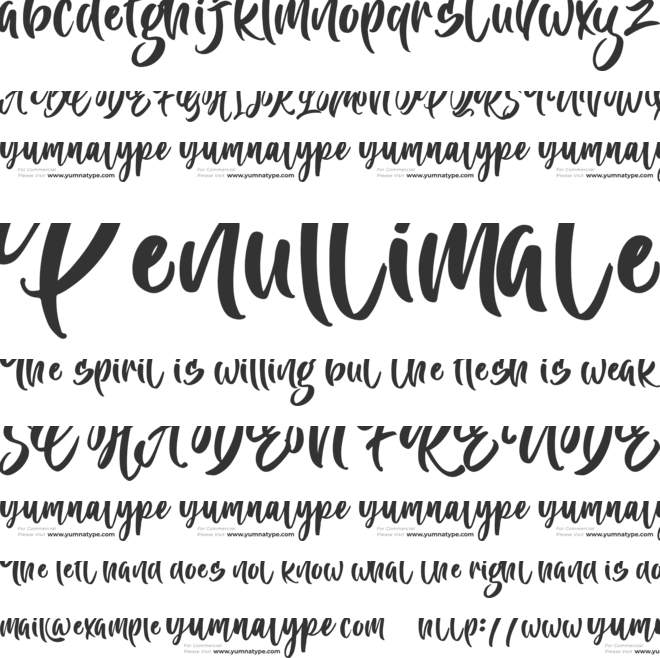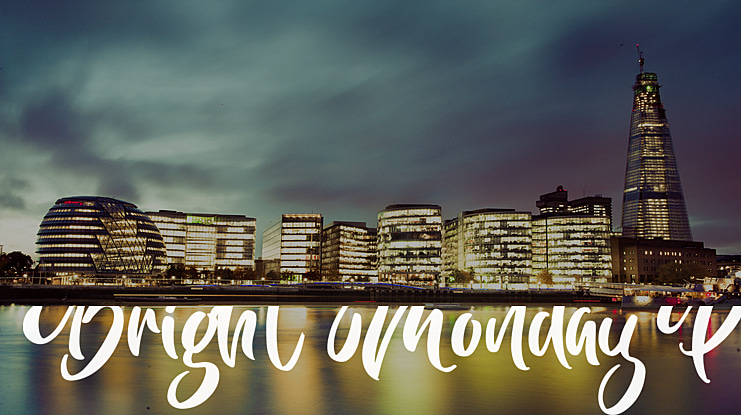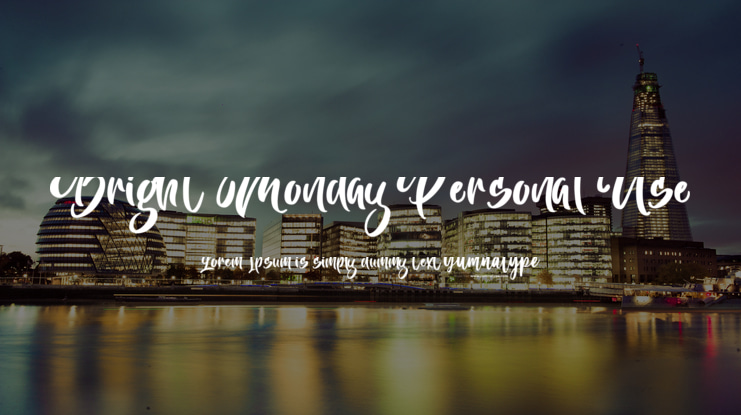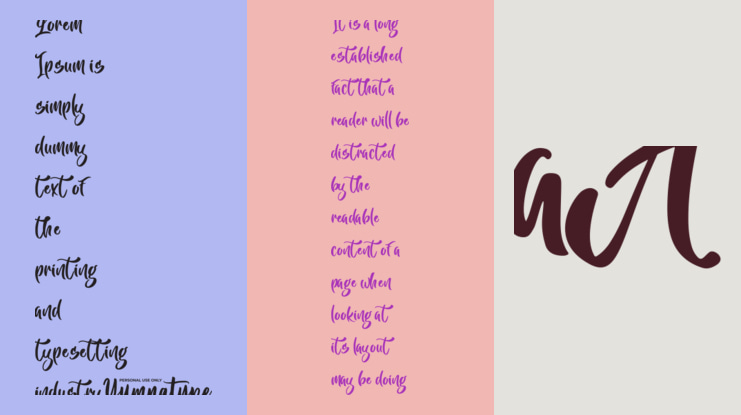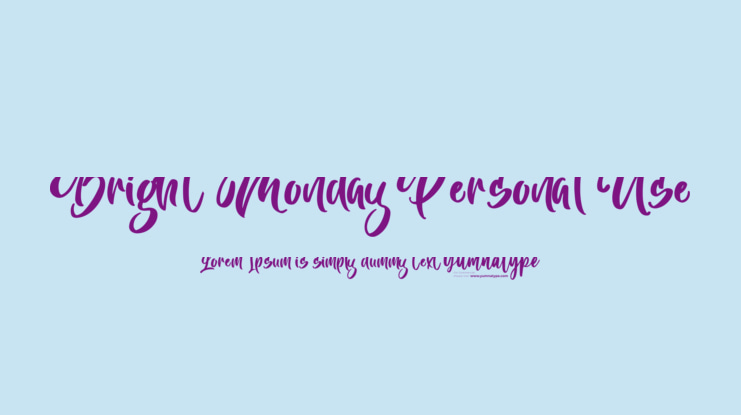
Introducing Bright Monday Font. Bright Monday is a beautiful brush font. Made with a natural brush. The
texture from the brush font will make your design more beautiful and powerful. This font is suitable for any design like branding, quotes, t-shirt printing and etc.